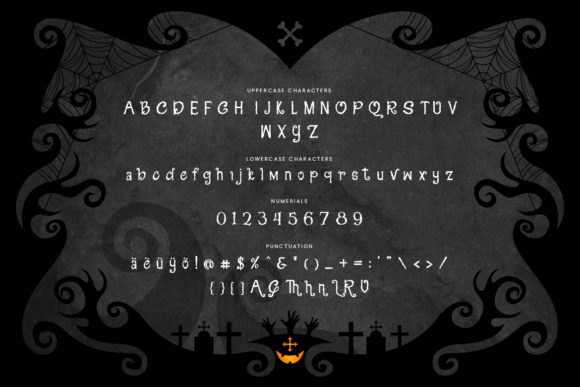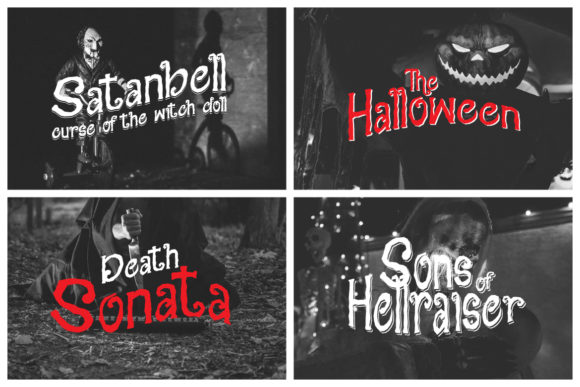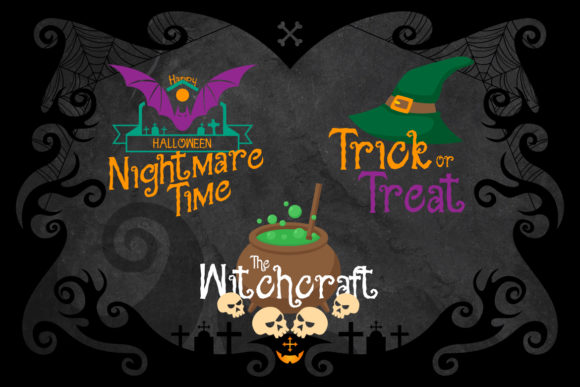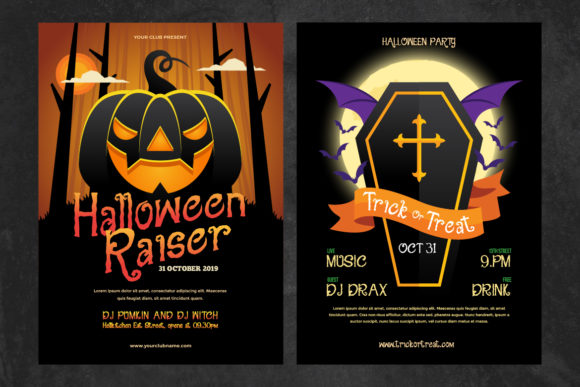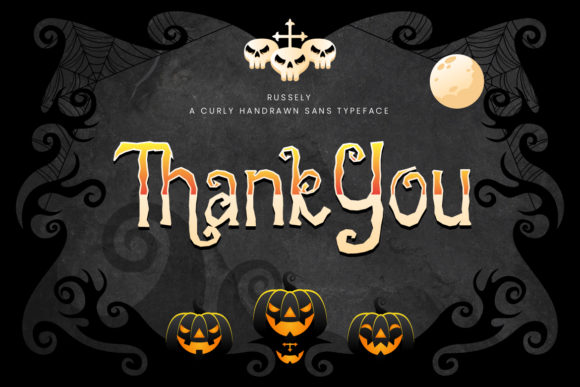
Introduction to Russely Font
Russely is an incredibly unique display font.
Key Features of Russely Font
Why Choose Russely Font?
Russely Font offers exceptional quality and versatility, making it a valuable addition to your design toolkit. Whether you’re creating for personal projects or commercial use, Russely Font delivers professional results.